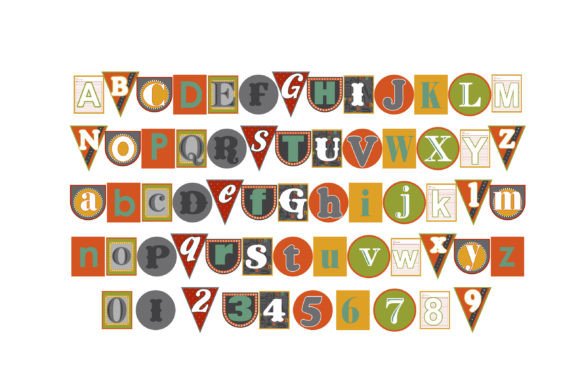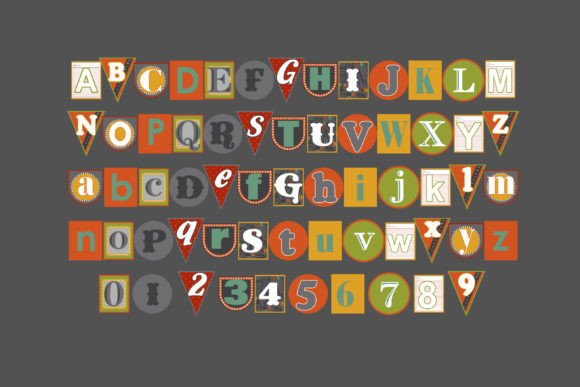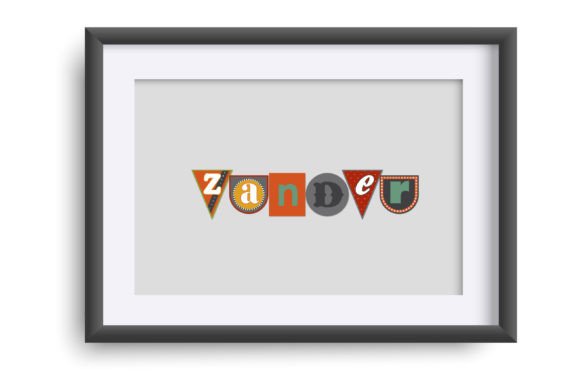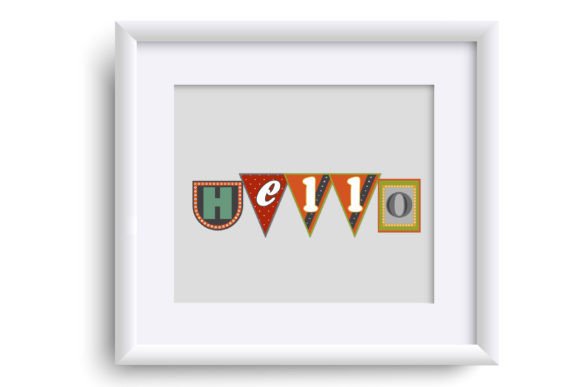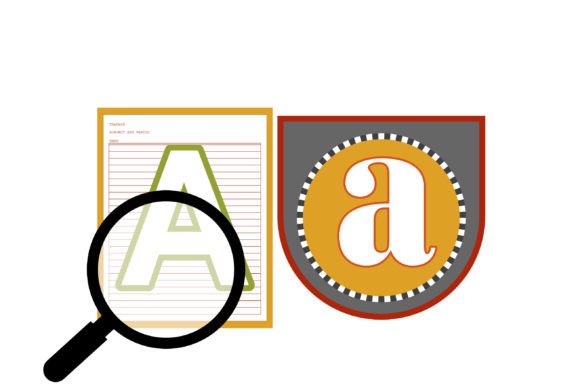
Introduction to School Medley Font
Remember the rush of excitement you felt when you were a kid, rummaging through your school’s art supply closet, searching for the perfect colors and textures to bring your creative project to life? The School Medley Font is a modern-day equivalent of that magical experience, transporting you back to a world of vibrant colors and endless possibilities.
For designers, the School Medley Font is a treasure trove of creative possibilities. With its unique blend of font styles and school-inspired bunting, this full-color font is the perfect addition to any high-quality design project. Whether you’re working on a free download or a paid design, the School Medley Font adds a touch of personality that’s sure to elevate your work.
And the best part? This design resource is incredibly versatile, allowing you to scale your designs to any size without sacrificing quality. With a transparent background and a wide range of colors to choose from, the School Medley Font is the perfect tool for any designer looking to add a little extra magic to their work.
Key Features of School Medley Font
- High-quality design suitable for creative projects, including educational materials, posters, and flyers.
- Includes a range of characters, including uppercase and lowercase letters, numbers, and special symbols.
- Designed to be highly legible, even at small font sizes, making it ideal for use in a variety of contexts.
Honest Review: School Medley Font
I recently had the opportunity to work with the School Medley Font, and I must say it’s been a game-changer for my creative project. The high quality of this font is undeniable, making it a fantastic design resource for anyone looking to elevate their work.
One of the things that really stands out about the School Medley Font is its versatility. With a transparent background, I was able to easily combine it with other design elements to create a cohesive look that’s perfect for a variety of projects.
- High-quality design with crisp lines and clear typography
- Transparent background makes it easy to combine with other design elements
- May not be suitable for very formal or professional projects due to its playful design
- Some users may find the font a bit too busy or cluttered, depending on the context
Overall, I’m really impressed with the School Medley Font, and I would definitely recommend it to anyone looking for a creative and engaging design resource. Its high quality and versatility make it an excellent choice for a wide range of projects.
The School Medley Font is perfect for a variety of creative projects, including school projects, educational materials, and party invitations. Its unique style makes it a great design resource for anyone looking to add a touch of fun and personality to their work.